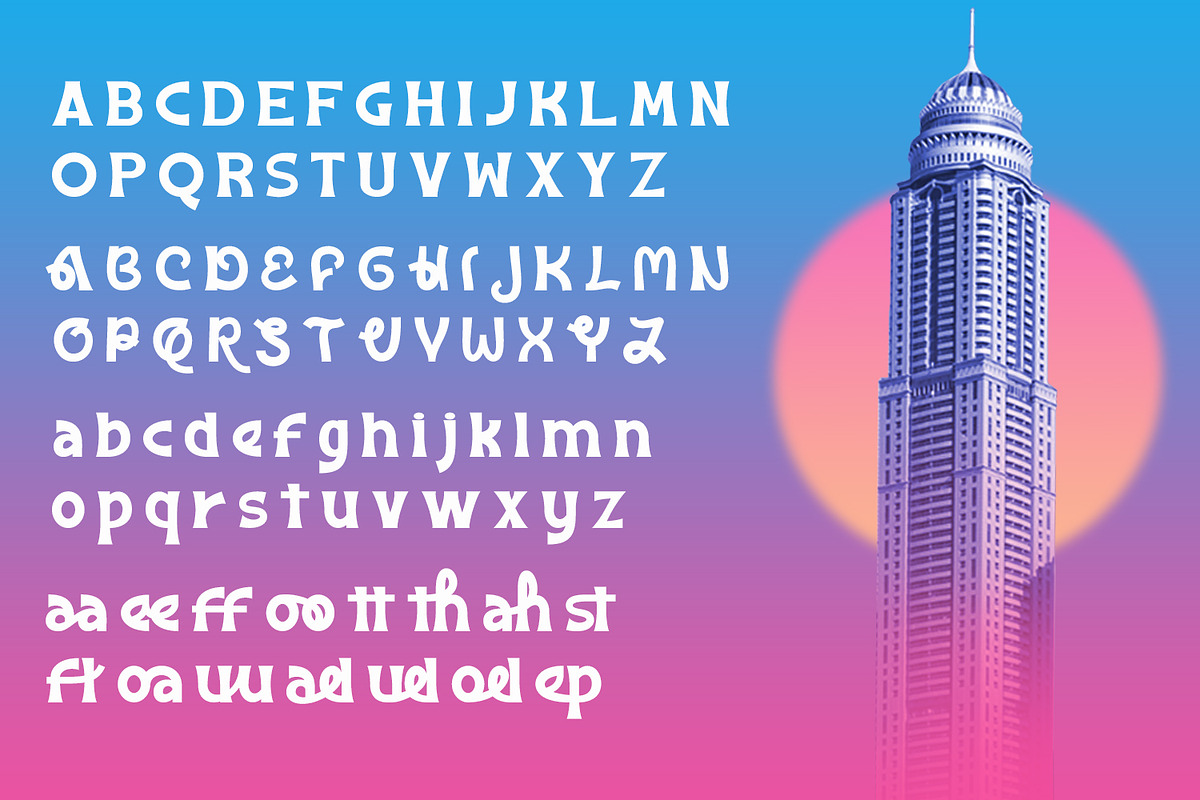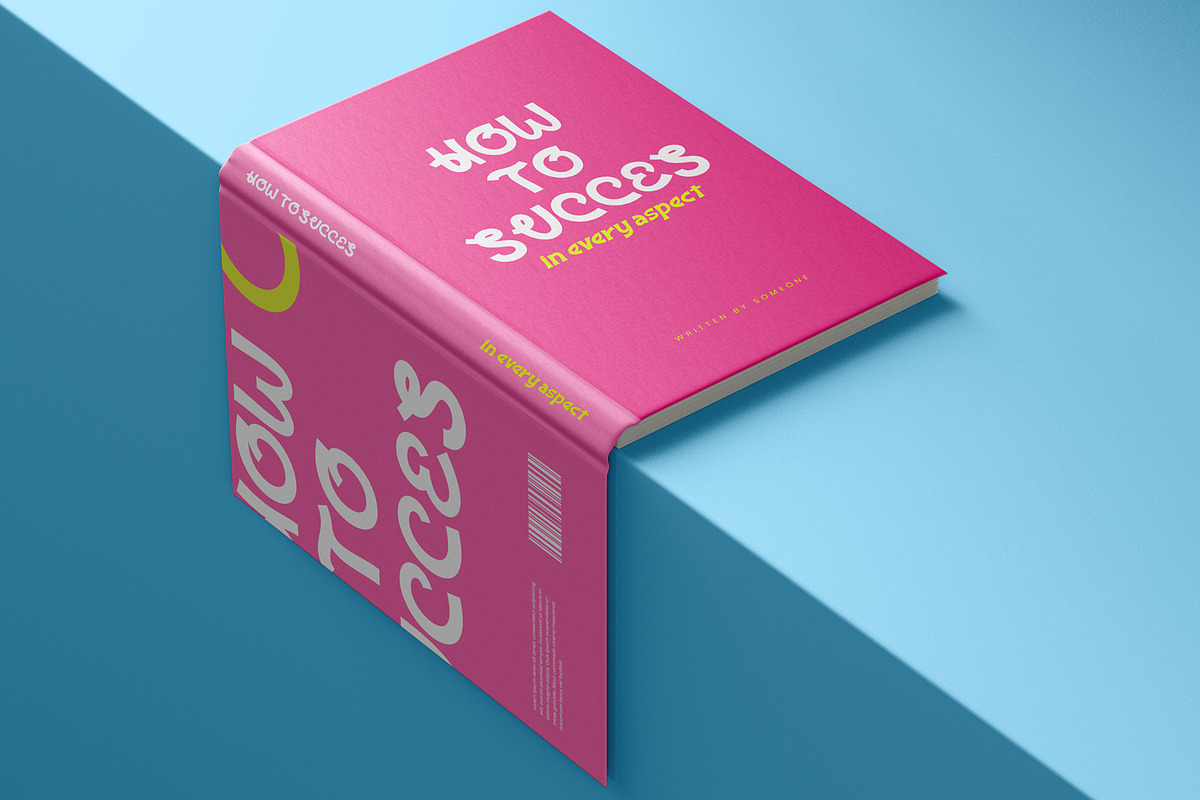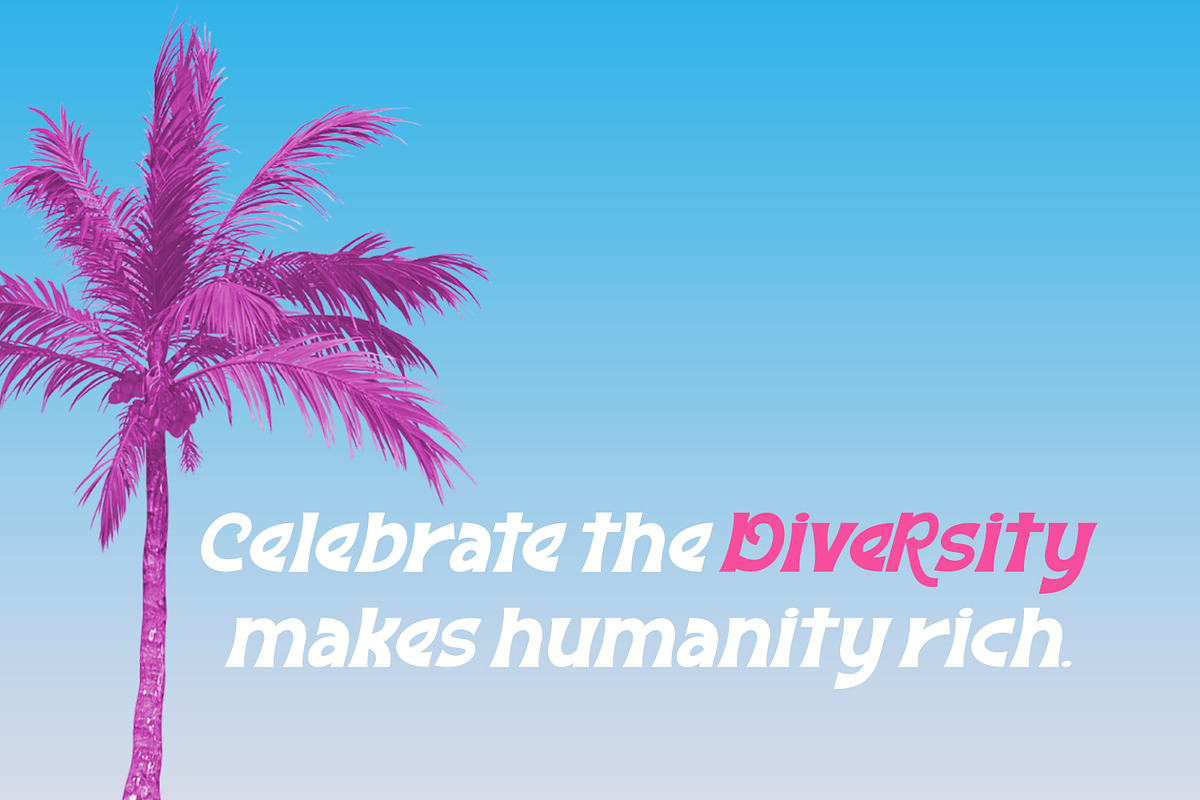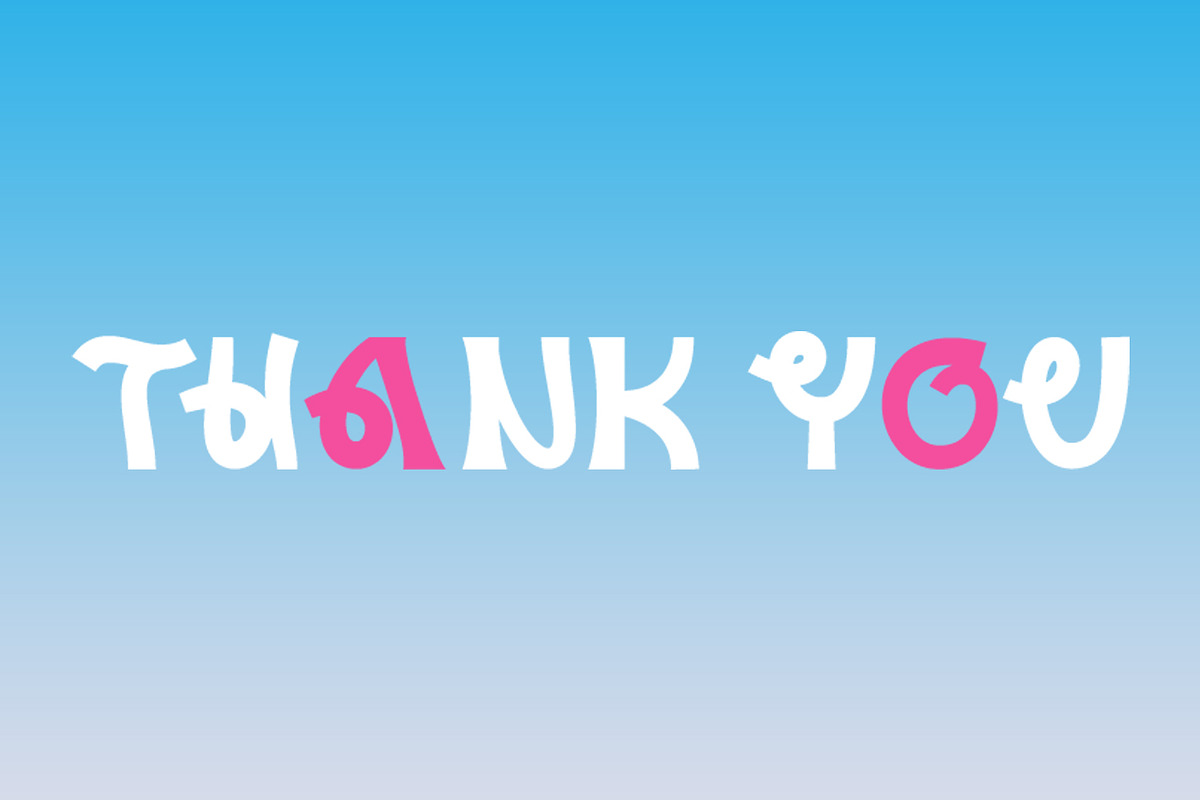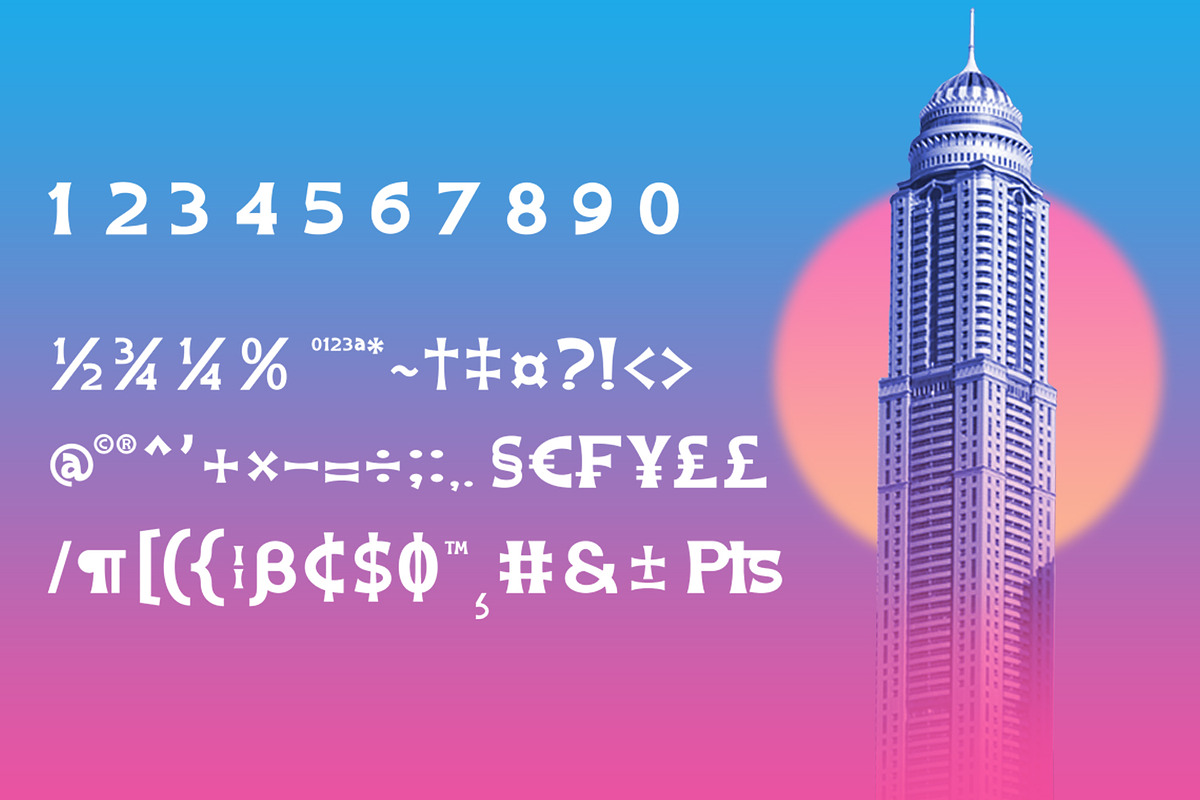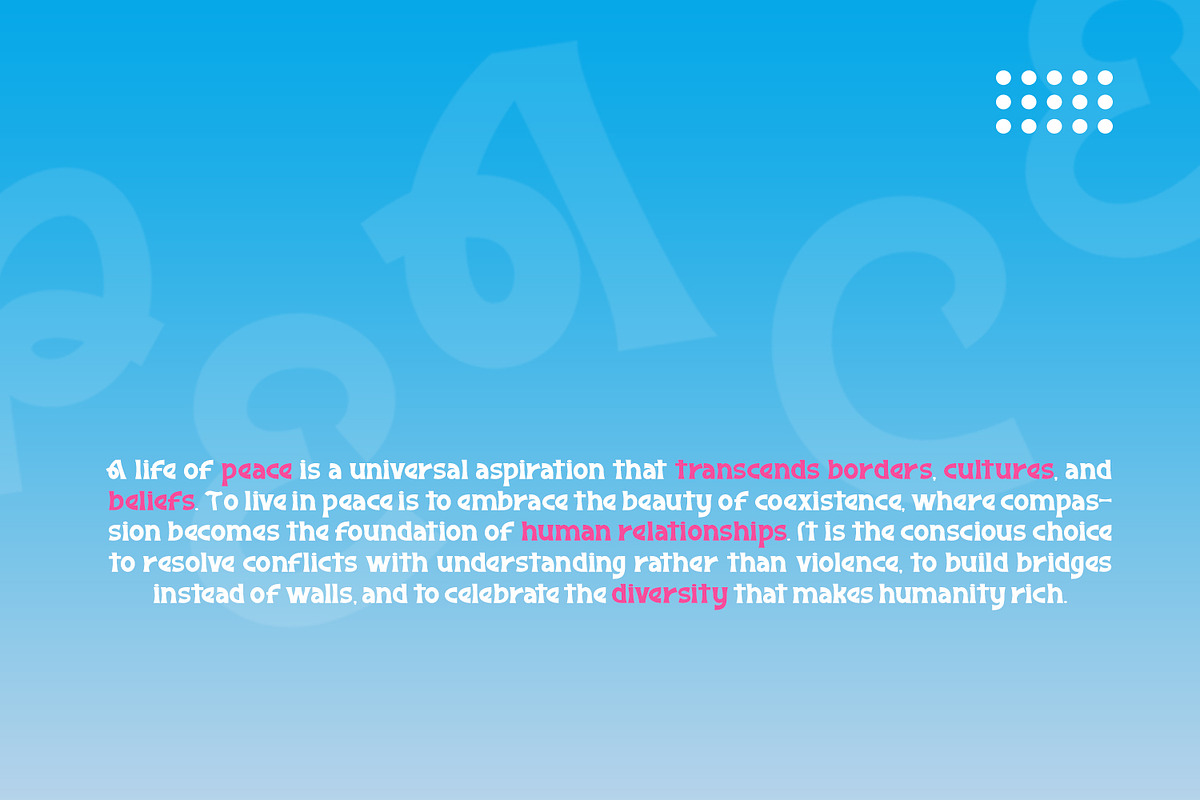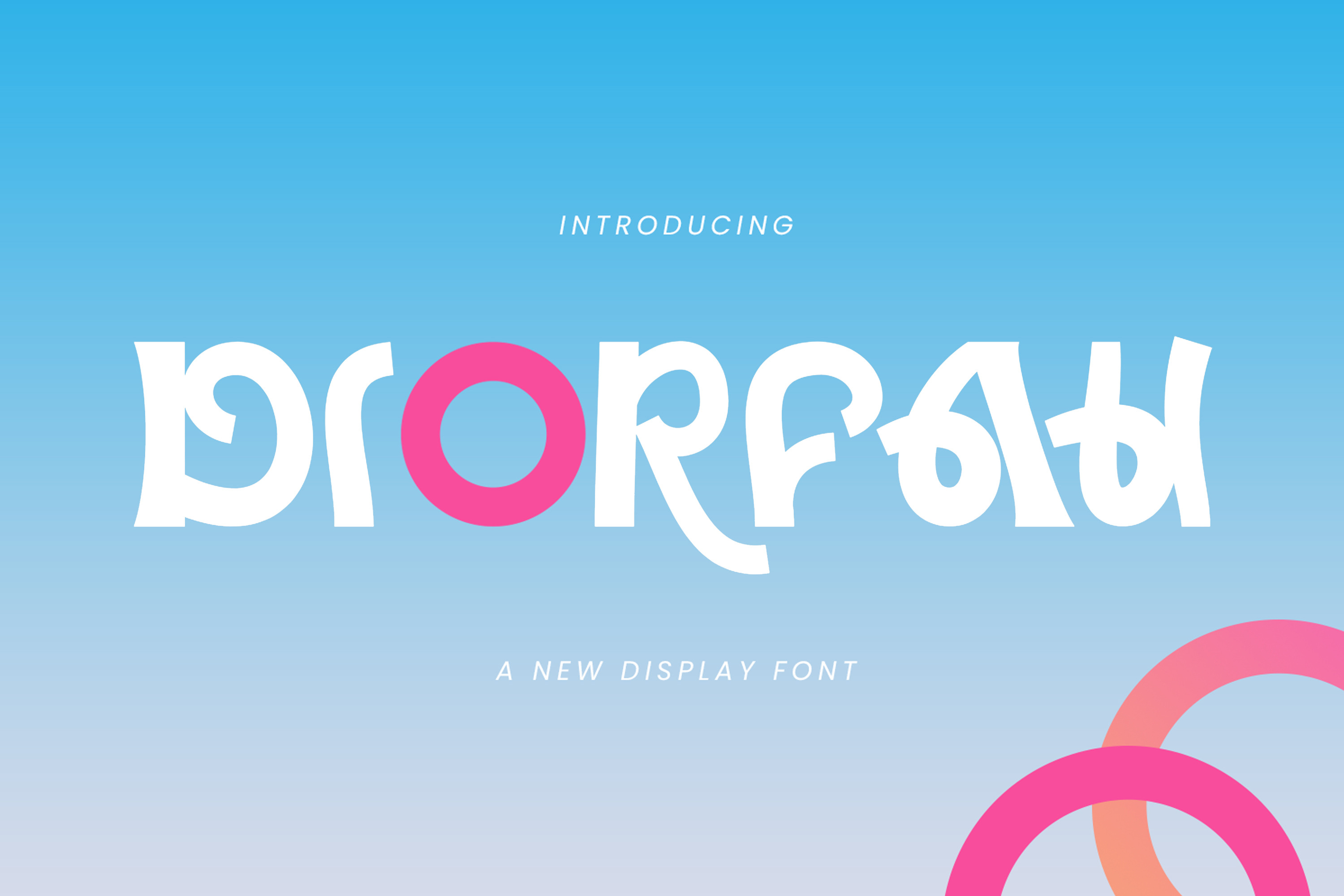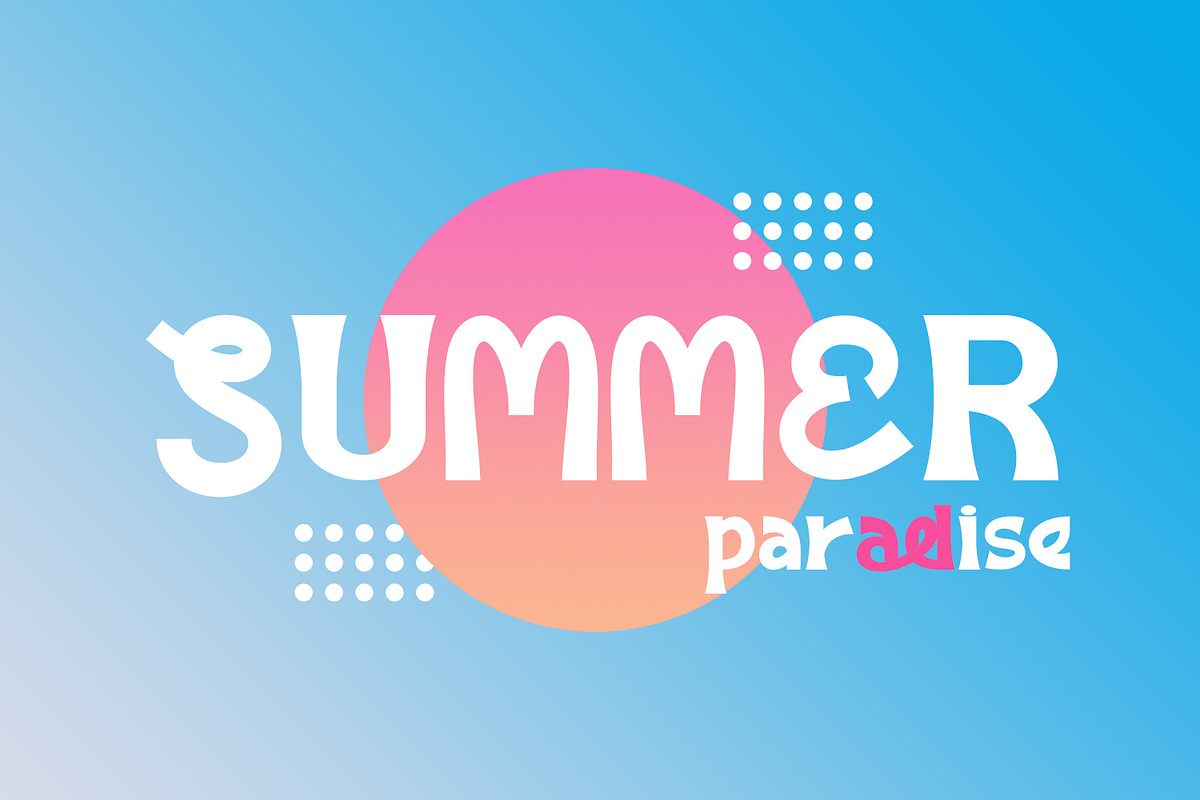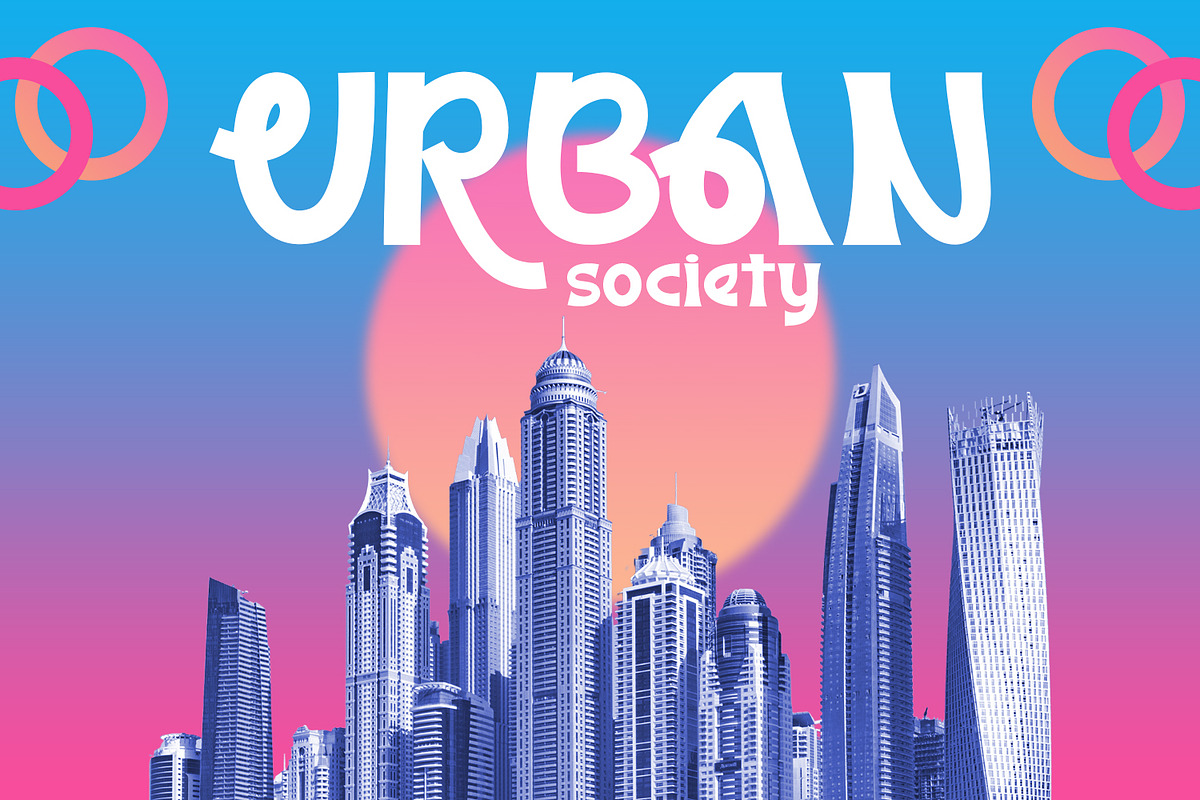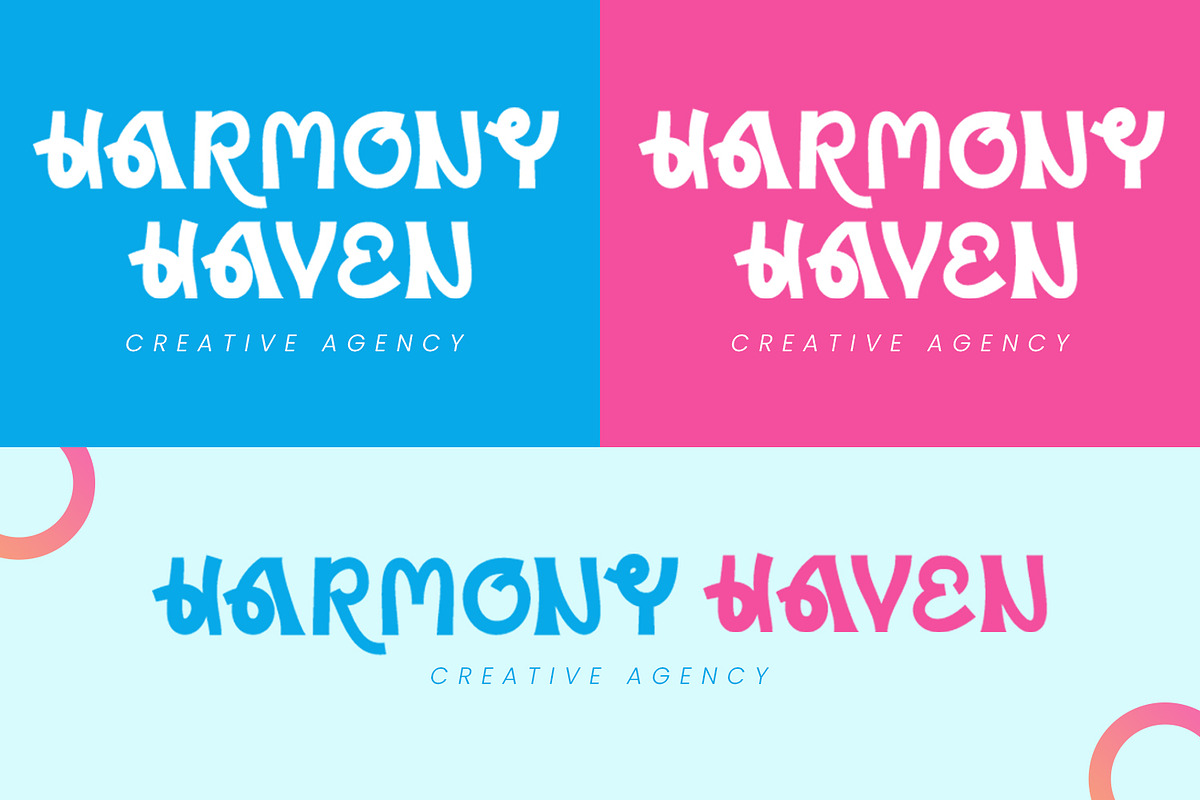
Diorfah - Modern Casual Display Font
Diorfah - Modern Casual Display Font, from Favowrite Studios, is a premium Font, perfect for any project that requires a distinctive, and premium feel.
- Ligature, Alternate & amp; Multilingu